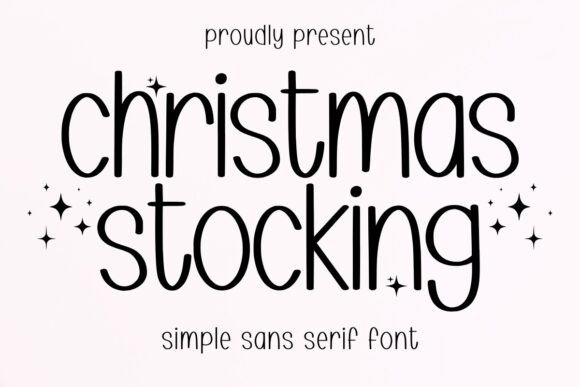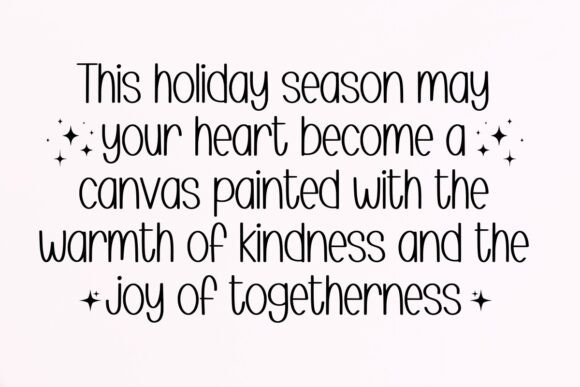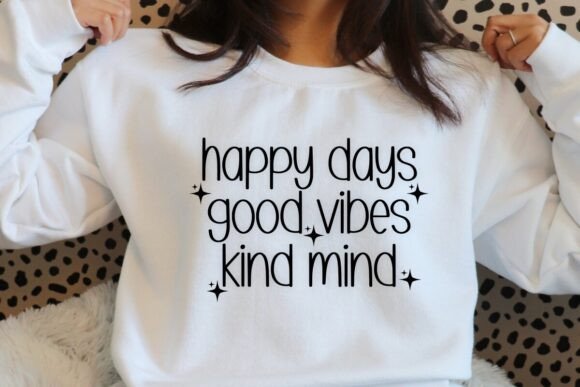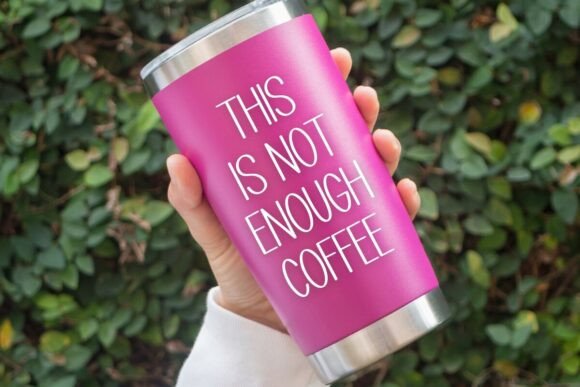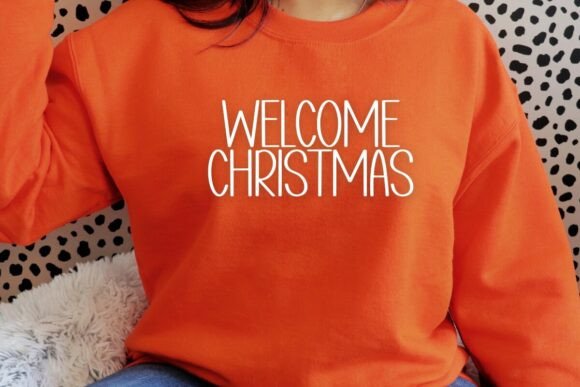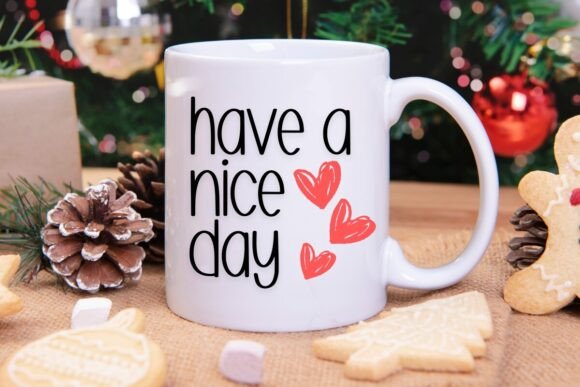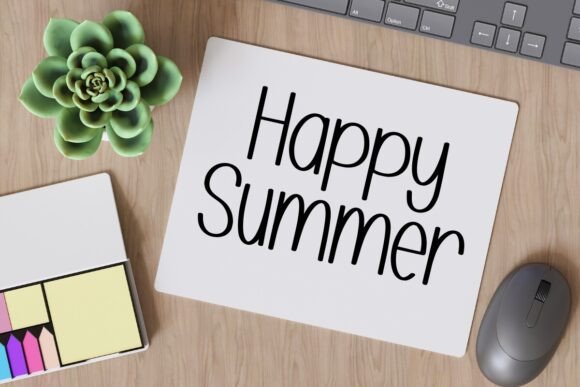
The Perfect Gift for Your Design: Christmas Stocking Font
As designers, we’ve all been there – stuck on a project, struggling to find the right font to capture the essence of our idea. But what if that perfect font was waiting for you, hidden in plain sight, just like a beautifully wrapped gift under the tree? For me, that moment came when I discovered Christmas Stocking Font, a delightful sans-serif typeface that instantly brought warmth and personality to my designs.
Christmas Stocking Font is a modern and friendly font, designed to bring a sense of whimsy and clarity to any project. Whether you’re creating a children’s book, designing an invitation, or building a brand, this font is sure to radiate a sweet charm that captures attention. Its playful curves and rounded edges make it a valuable addition to any designer’s toolkit, and its inviting personality is sure to make your designs stand out.
Christmas Stocking Font Key Features
- Unique Character Set: This font includes a wide range of festive characters, including Christmas trees, stockings, bells, and more, perfect for adding a holiday touch to your designs.
- Size: This font comes in a single size, with a large character set and a medium to large font size range, ideal for use in titles, headings, and decorative text.
- Resolution: Designed to be scalable, this font can be used at various resolutions, from low-resolution prints to high-resolution digital displays.
- Style Options: Christmas Stocking Font offers a range of style options, including bold, italic, and regular styles, allowing you to customize the look and feel of your designs.
- Perfect for: This font is ideal for use in holiday-themed designs, such as Christmas cards, gift tags, and decorations, as well as in branding and marketing materials for businesses in the holiday industry.
Designer Review: Christmas Stocking Font
Overall, I think the Christmas Stocking Font is a fun and playful addition to any holiday design project. ✨ The font’s whimsical feel and ornate details make it perfect for creating festive and eye-catching graphics. The font is well-suited for use in social media posts, advertisements, and other marketing materials.
Here are some of the font’s strengths:
- Unique and creative design that sets it apart from more generic holiday fonts ✨
- Well-suited for use in a variety of design contexts, from digital to print
- Includes a range of characters, including uppercase and lowercase letters, numbers, and punctuation
- Some characters may be difficult to read, particularly at small sizes ⚠️
- The font may be too ornate for use in situations where simplicity is key
- May not be suitable for use in professional or corporate settings
Overall, I think the Christmas Stocking Font is a great choice for designers looking to add a touch of holiday cheer to their projects. With its unique design and playful feel, it’s sure to be a hit with clients and audiences alike.
The Christmas Stocking Font is perfect for creating festive designs for the holiday season. Common use cases include:
– Creating invitations and greeting cards
– Designing social media posts and advertisements
– Adding a festive touch to presentations and documents
Comparison: Great Vibes is more polished and refined, whereas Christmas Stocking Font has a more playful, handwritten feel.